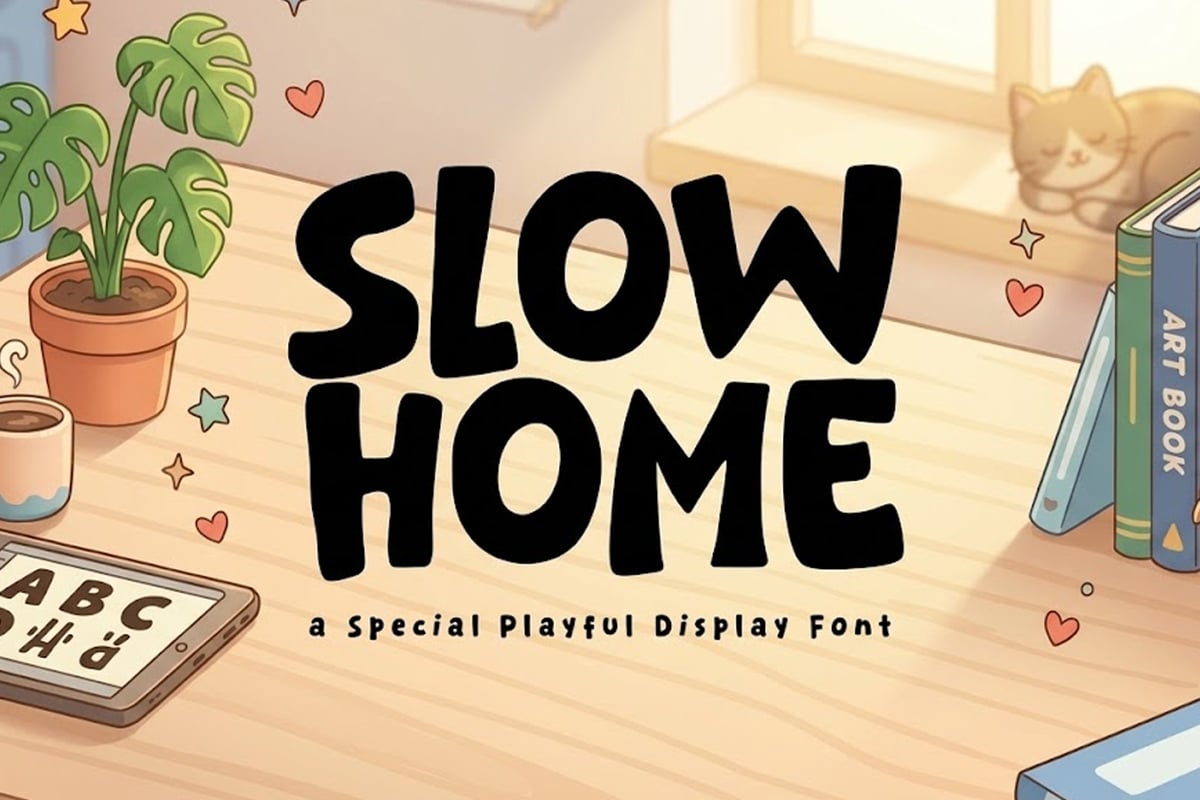
Slow Home - Cozy & Display Font
Transform your designs with Slow Home's irresistibly cozy and playful display font that radiates pure childlike wonder! This contemporary handwritten typeface bursts with vibrant personality and spirited energy that instantly captures attention. Every character radiates charm, making it the perfect choice for creating memorable designs that stand out from the crowd. Slow Home's bold presence and delightful character make it incredibly versatile for posters, logos, magazines, book covers, banners...